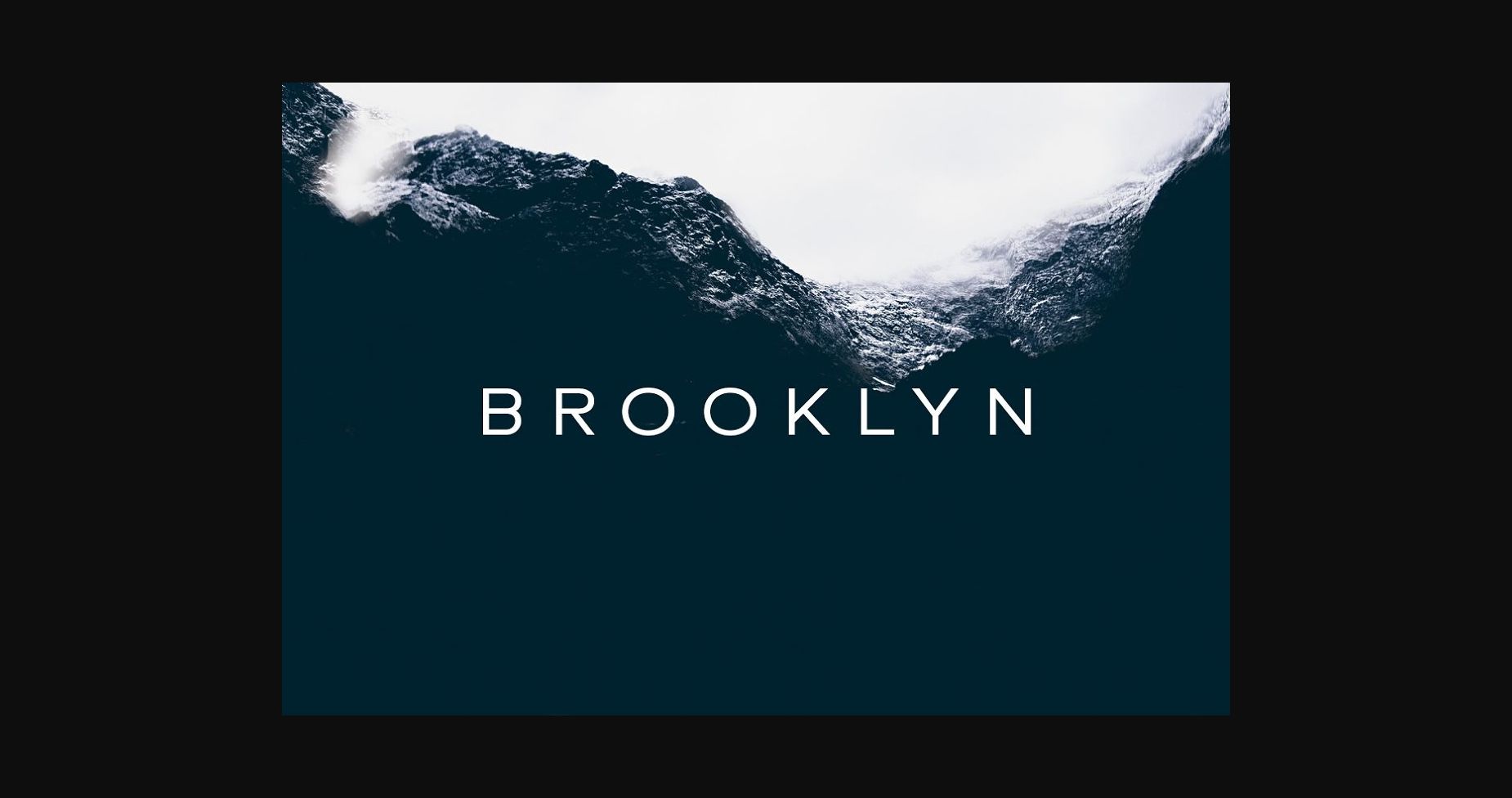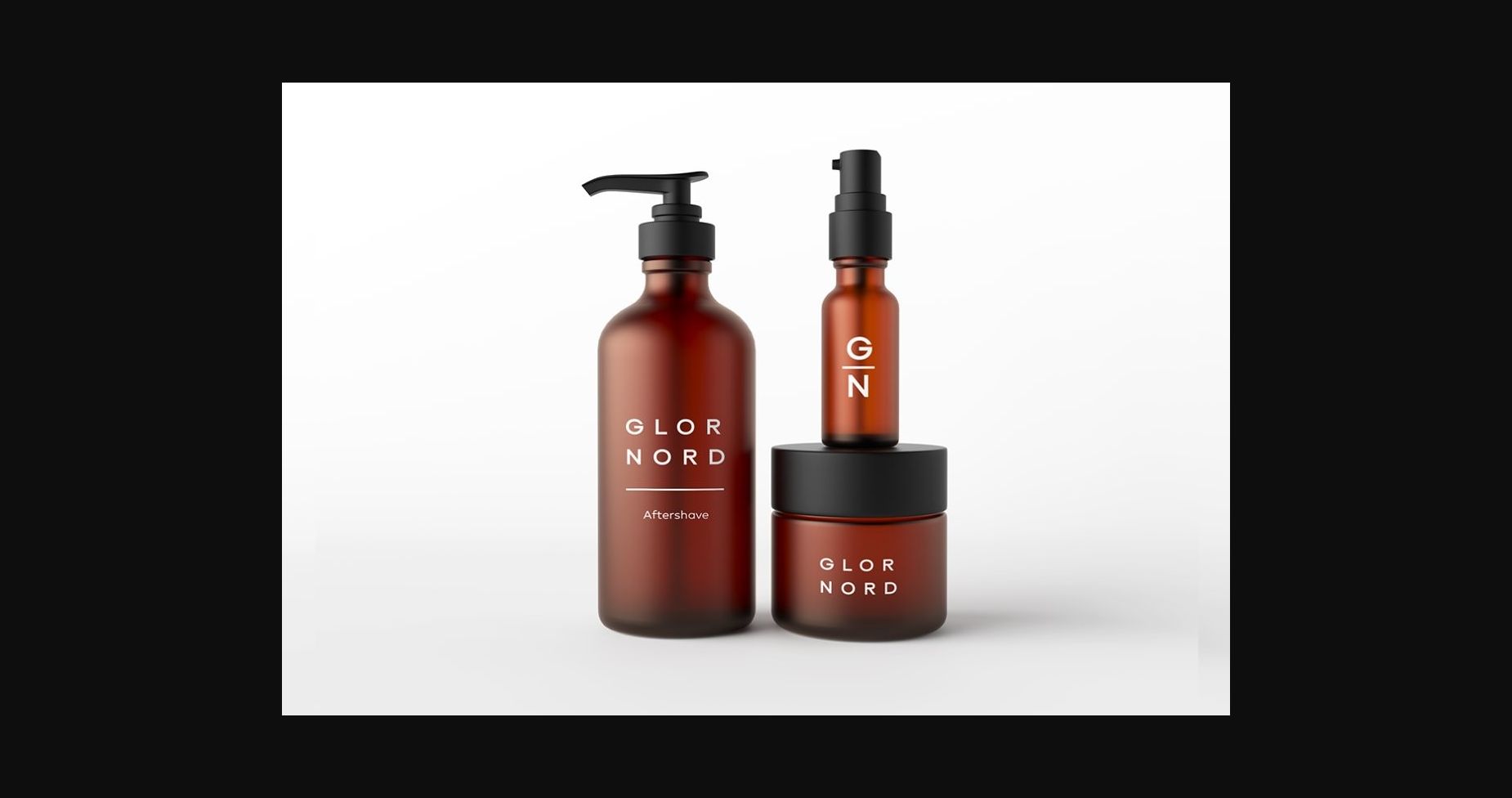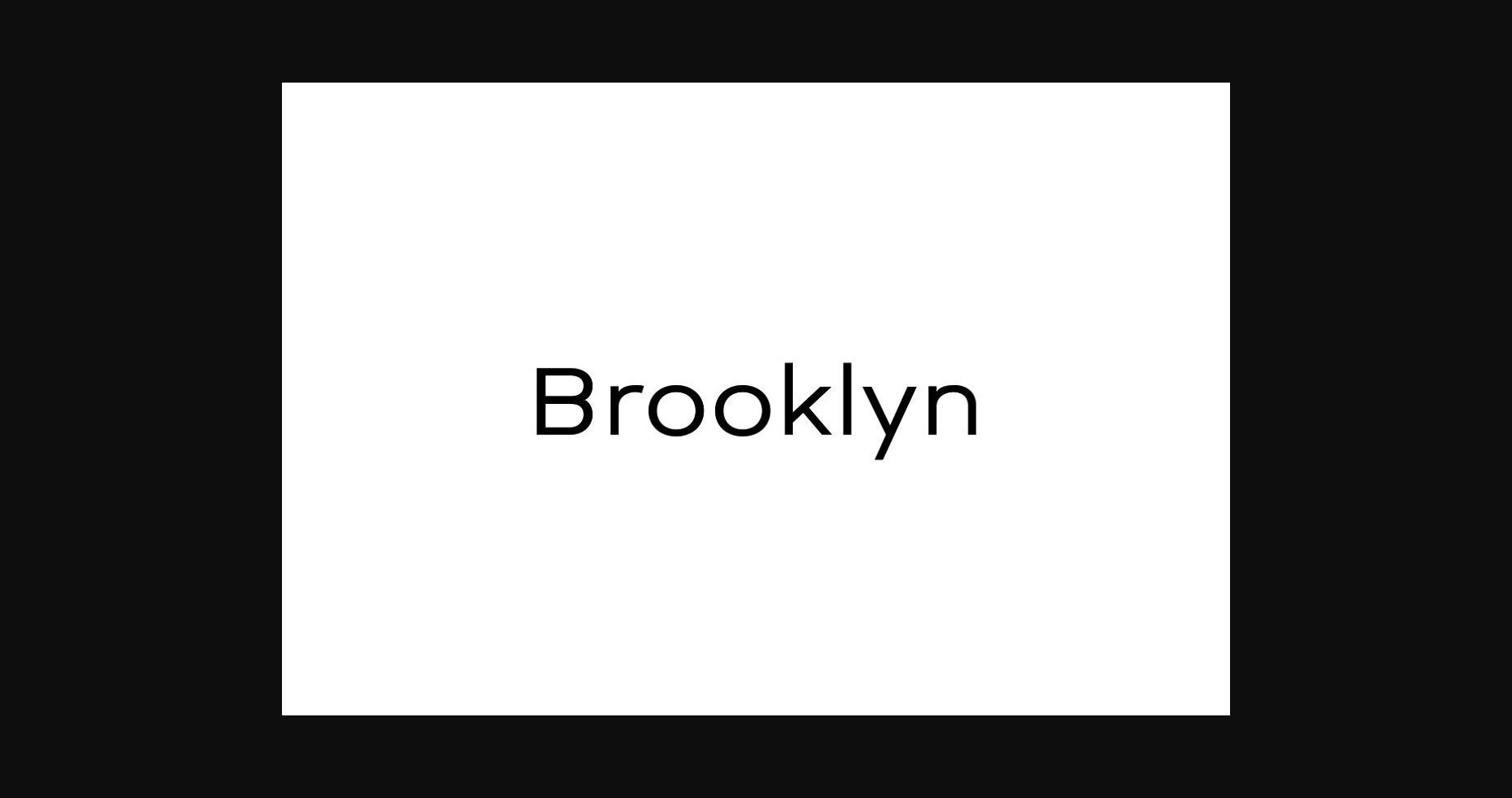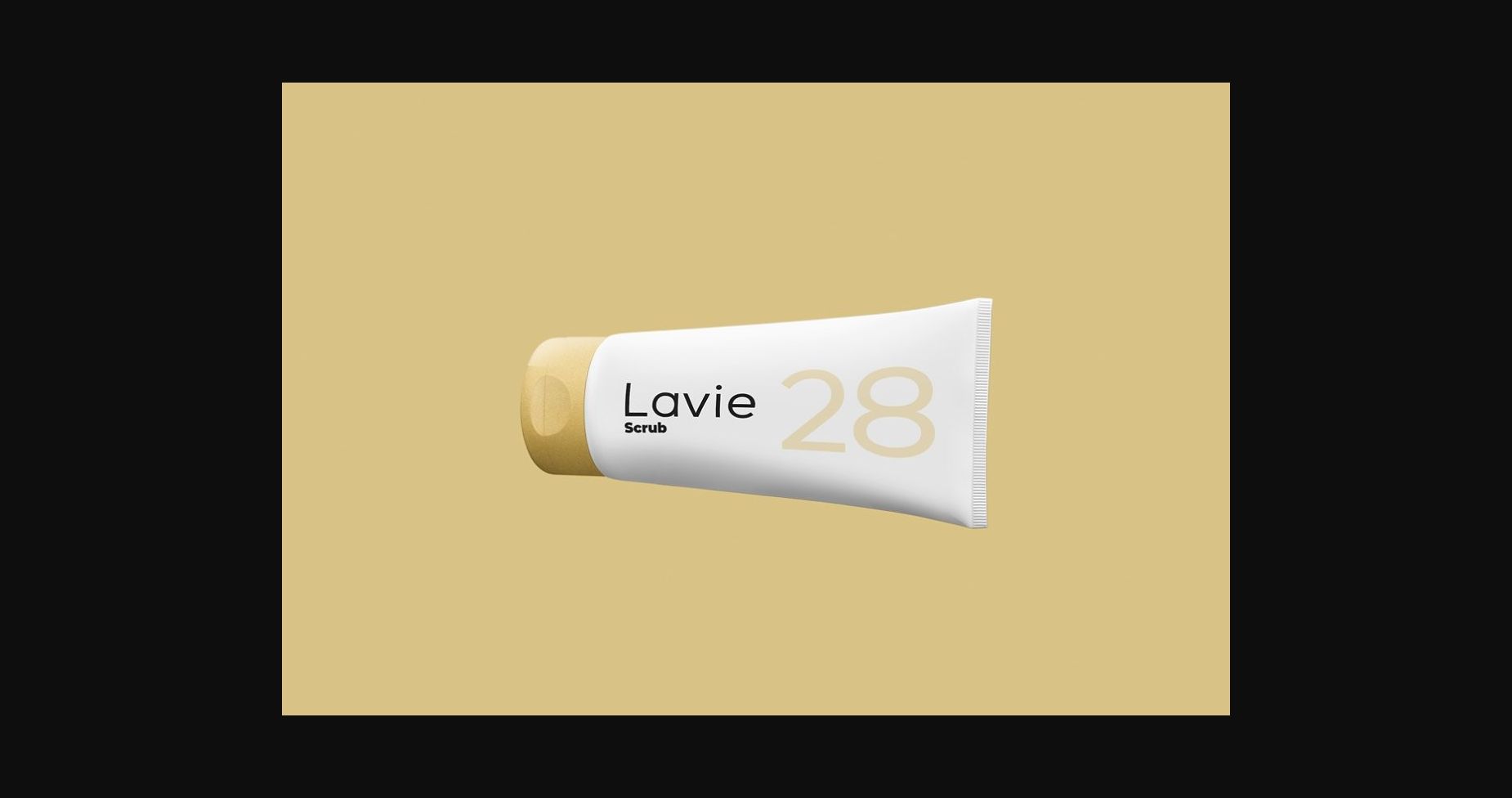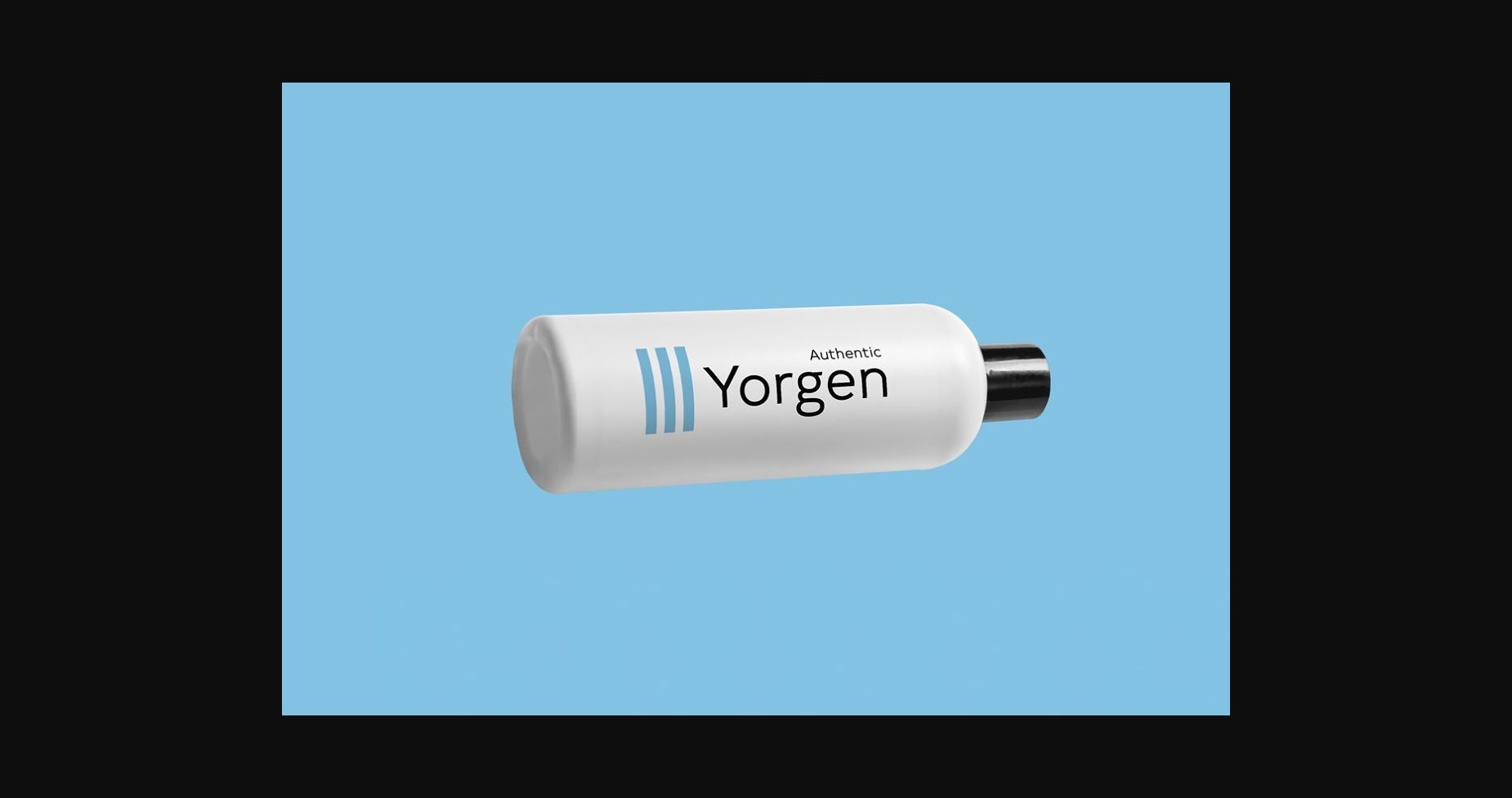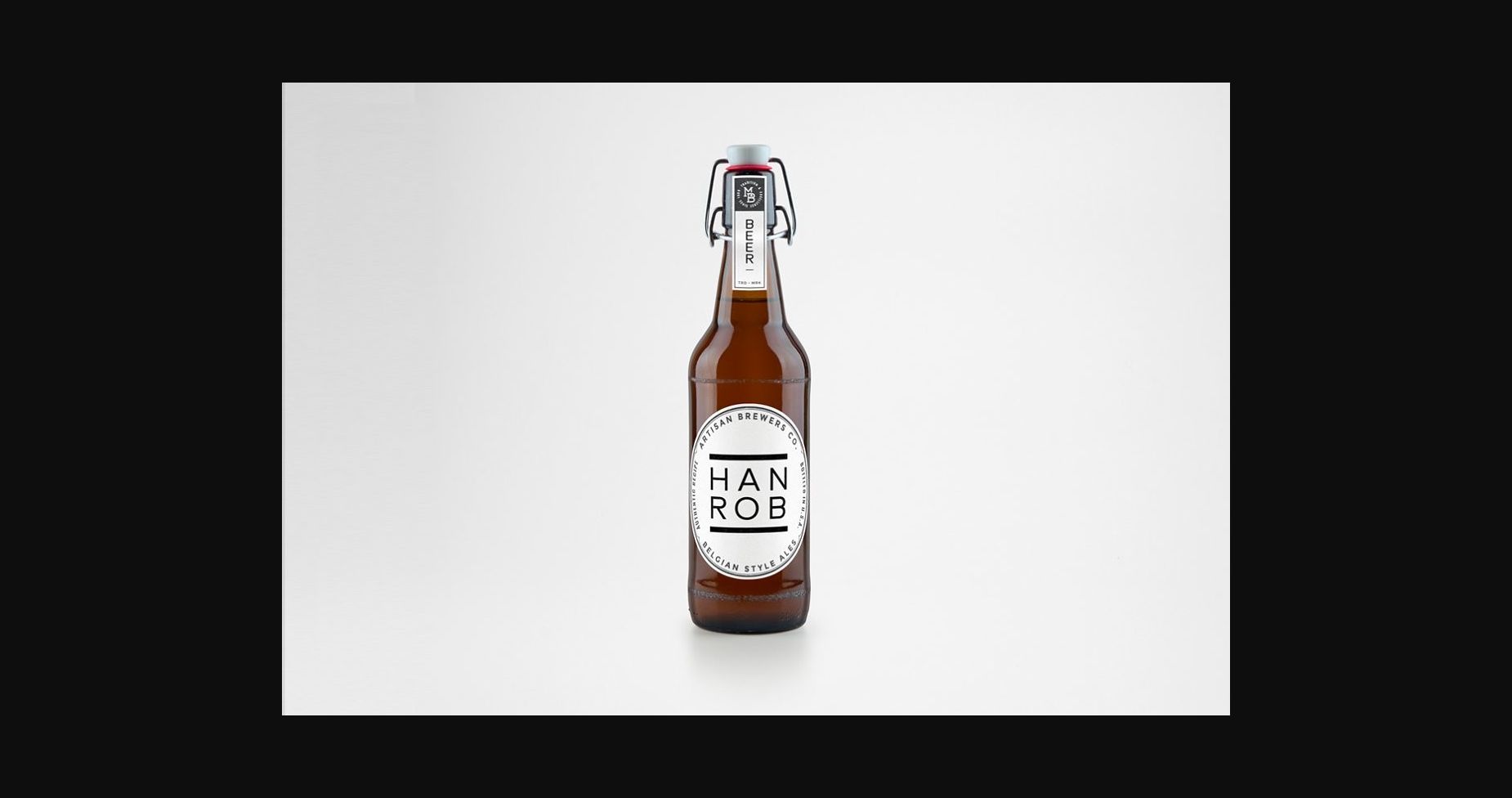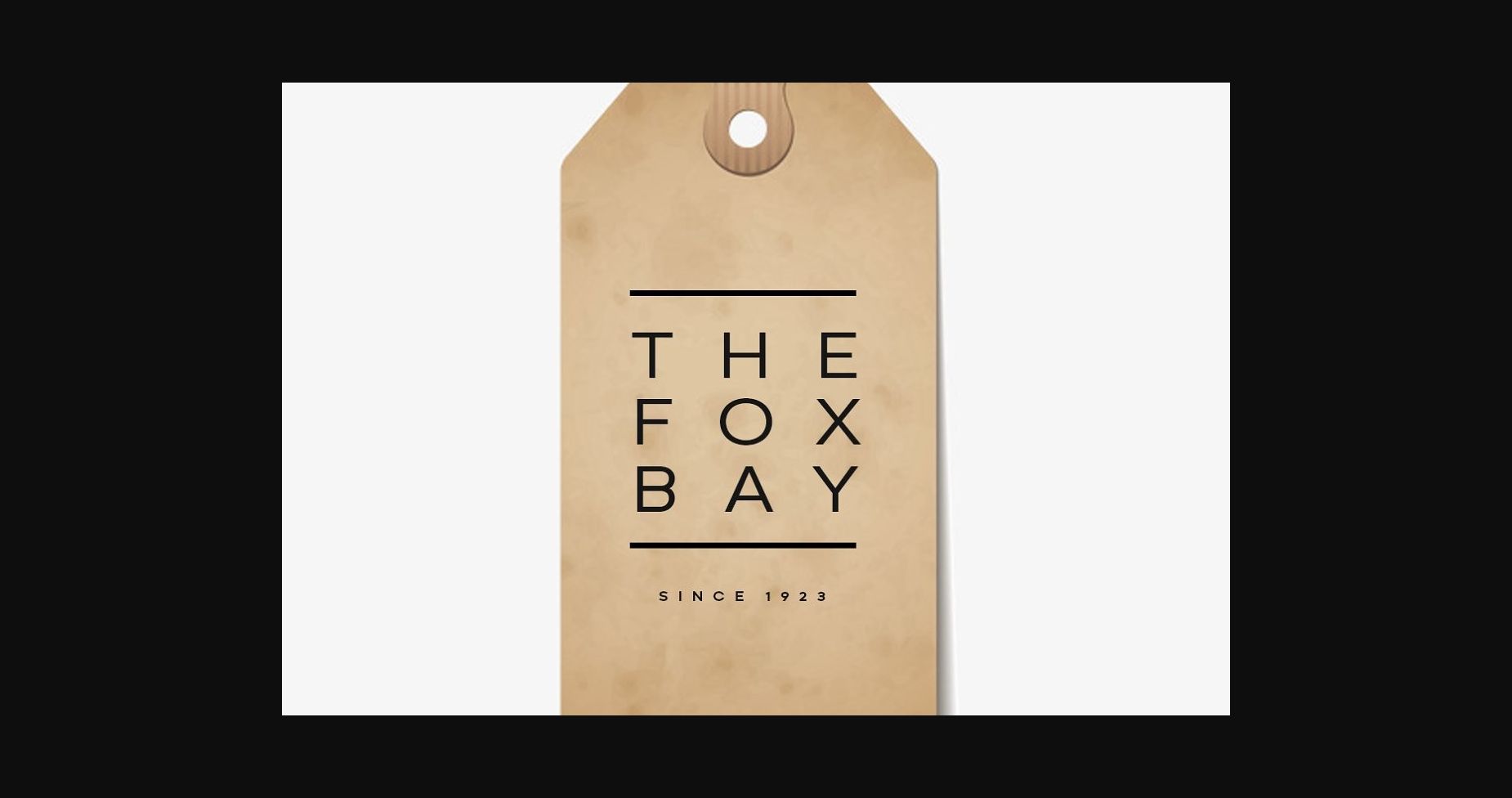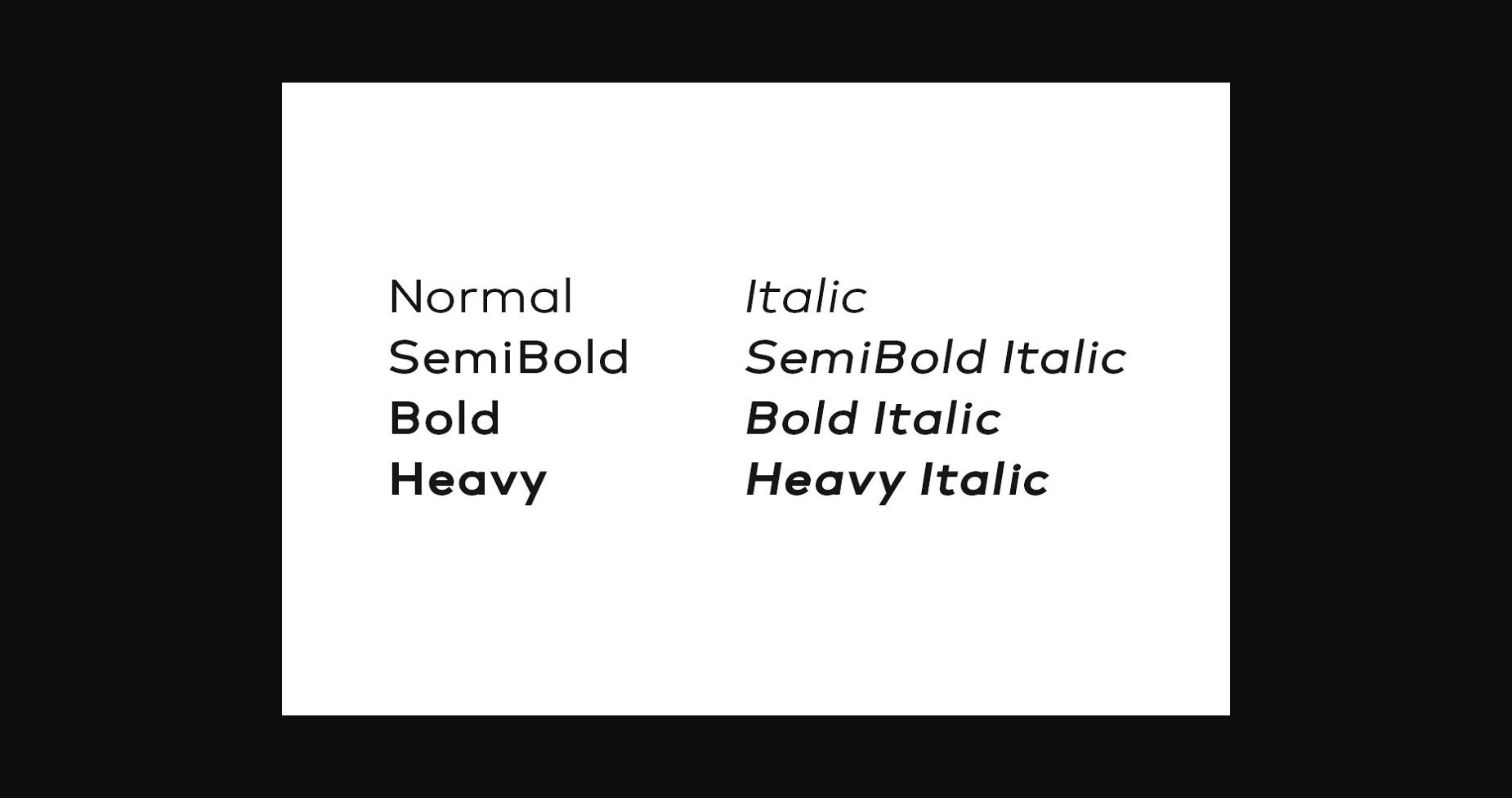
HomeSans Serif FontsBrooklyn Font Sans Serif Fonts Brooklyn Font FacebookXPinterestWhatsApp 1 of 10 ... Brooklyn Font Poster 2... Brooklyn Font Poster 3... Brooklyn Font Poster 4... Brooklyn Font Poster 5... Brooklyn Font Poster 6... Brooklyn Font Poster 7... Brooklyn Font Poster 8... Brooklyn Font Poster 9... Brooklyn Font Poster 10... About Brooklyn Font Brooklyn is a minimal and neat sans serif font. It can easily be matched to an incredibly large set of projects, so add it to your creative ideas and notice how it makes them stand out! DOWNLOAD NOW People also explored Cathylan Font Soemadi Font Nice Meet Font Signature Font Grethol Font Happy Moment Font Beige Pillow Mockup Old Zelyna Font Storytelling Font 287 0 TagsBrooklyn Font Previous articlePrenton Regular and Thin FontNext articleFoslin & Magnetta Font LEAVE A REPLY Cancel reply Comment: Please enter your comment! Name:* Please enter your name here Email:* You have entered an incorrect email address! Please enter your email address here Website: Save my name, email, and website in this browser for the next time I comment. Personal Use Free Monogram Calligraphy Personal Use Free Read more about this font Multicolore Personal Use Free Read more about this font Kredit Personal Use Free Read more about this font Breather Personal Use Free Read more about this font BLOG Free vs Paid Fonts: Why Investing in Premium Fonts Is Worth It Free vs Paid Fonts: Why Premium Fonts Are Worth It in 2025 The debate of free vs paid fonts continues in the design world. While... How to Install and Use Fonts on Windows, macOS, and Web Projects Free Fonts Risk: Why Free Fonts Can Be Dangerous for Designers Using Fonts in Digital Marketing: Tips to Strengthen Your Brand Identity